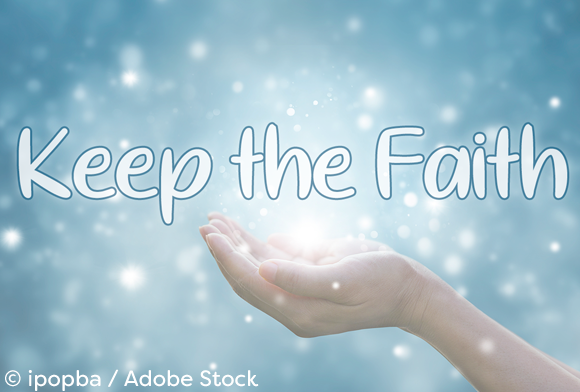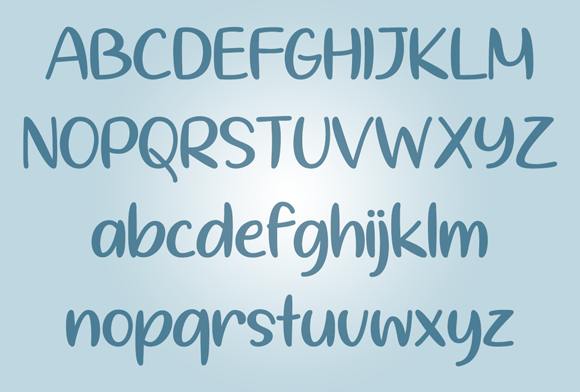
Keep the Faith Font
Keep the Faith is a fun and bold handwritten font with a unique charm. Get inspired by its whimsical charm, and turn any design idea into a stand out!